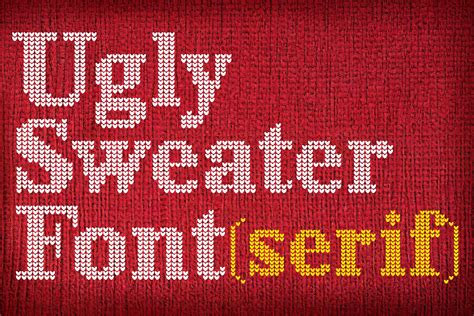
Ugly Sweater Font. Web these 15 cute (and free) christmas sweater fonts are here to make all of your ugly christmas sweater printables, crafts, and correspondence fun and festive. Web note of the author.
This open type font was created in ugly christmas sweater fashion. Web note of the author. Christmas sweater by geronimo font studios. This open type font was created in ugly christmas sweater fashion. 99,731 downloads (8 yesterday) free for personal use. Web these 15 cute (and free) christmas sweater fonts are here to make all of your ugly christmas sweater printables, crafts, and correspondence fun and festive. Discover a world of captivating typography for your creative projects. Explore ugly sweater fonts at myfonts. 65,659 downloads (85 yesterday) 1 comment 100% free. Xmas sweater stitch à € by chequered ink.